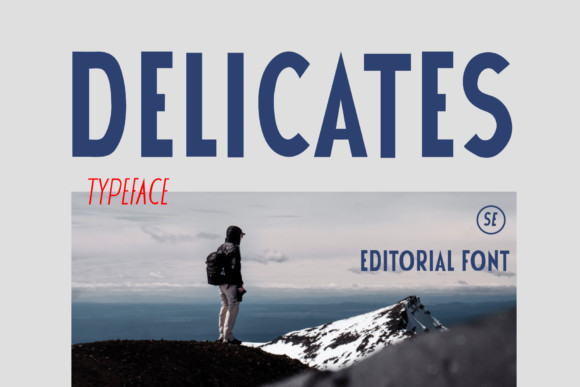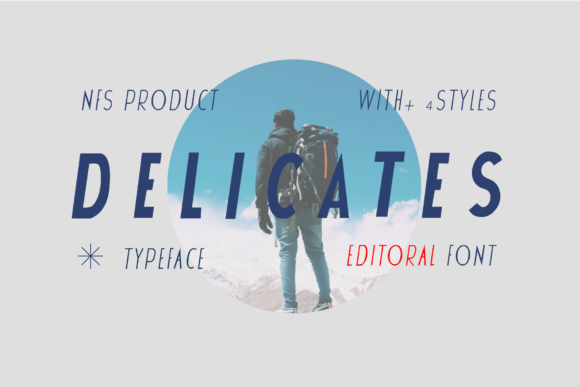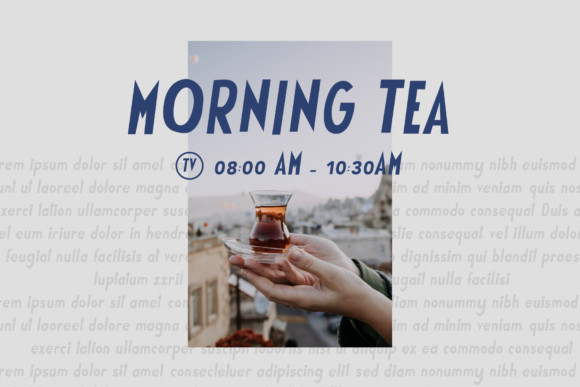
Delicates Font
Delicates is a cool and bold looking display font. Add this font to each of your designs related to sports, speed or racing, and you will fall in love with the outcome.